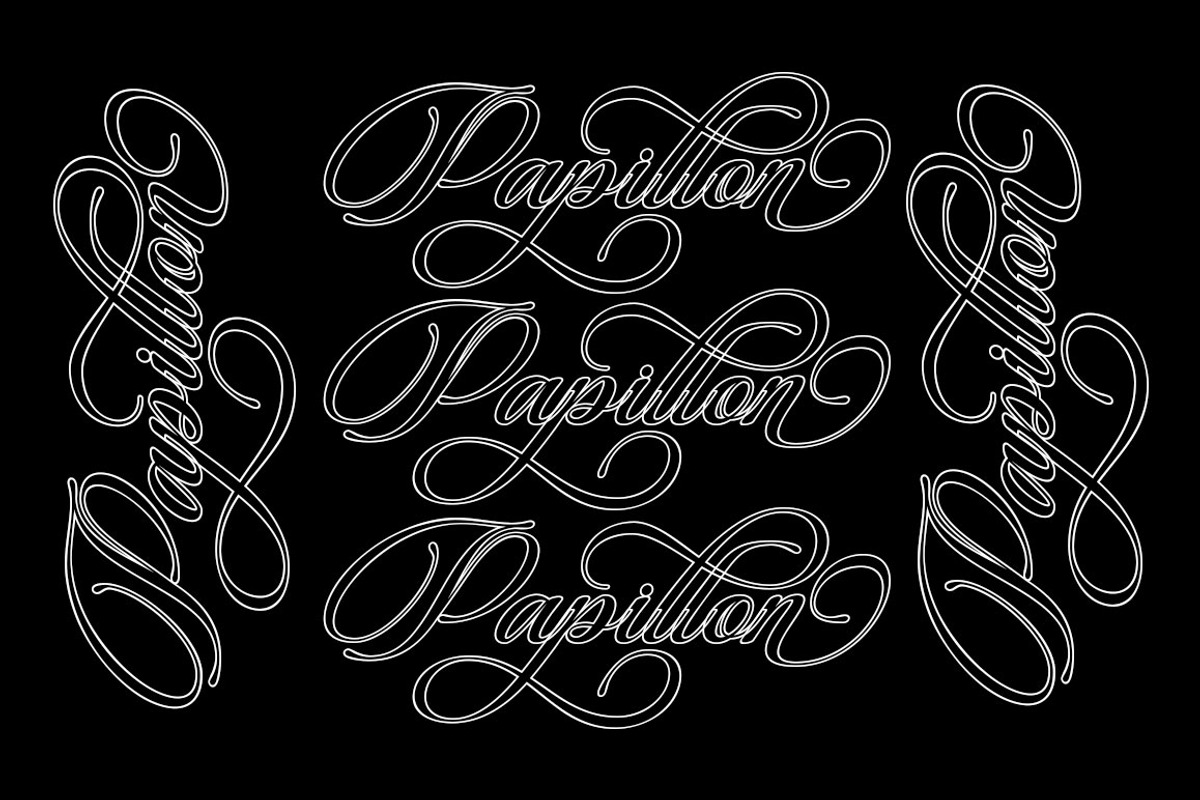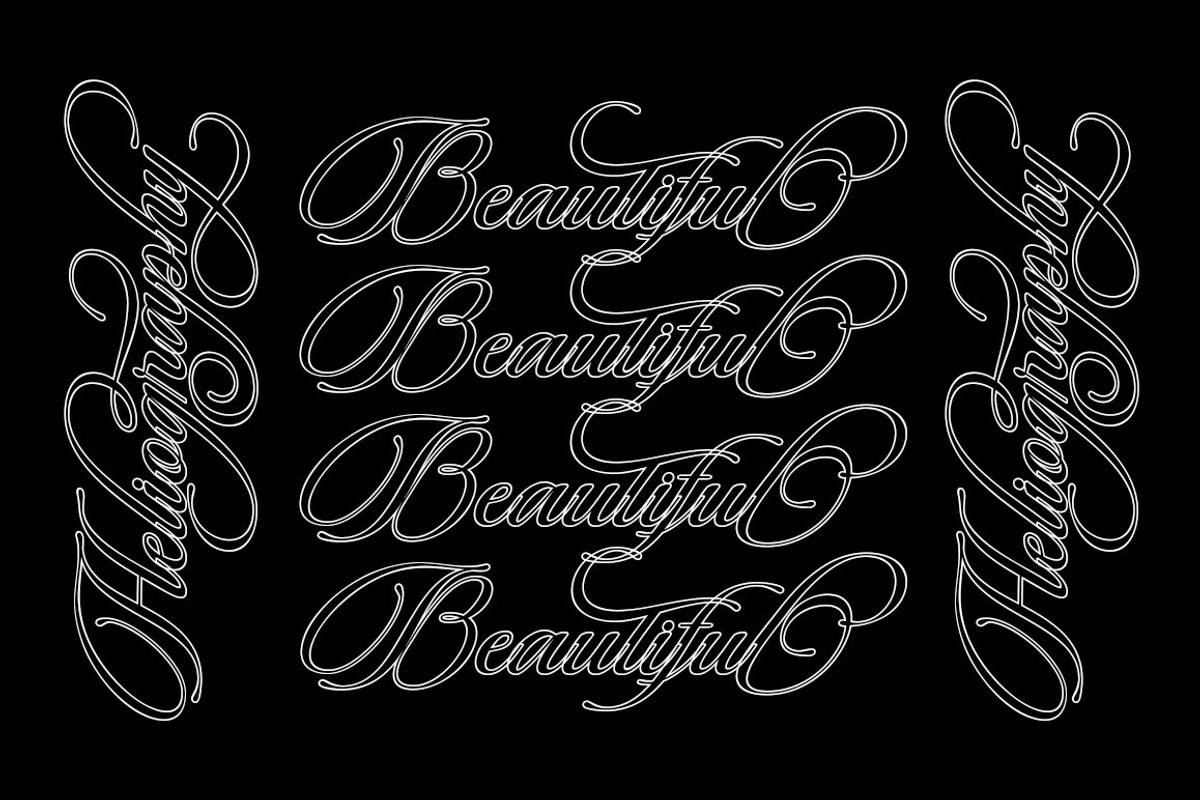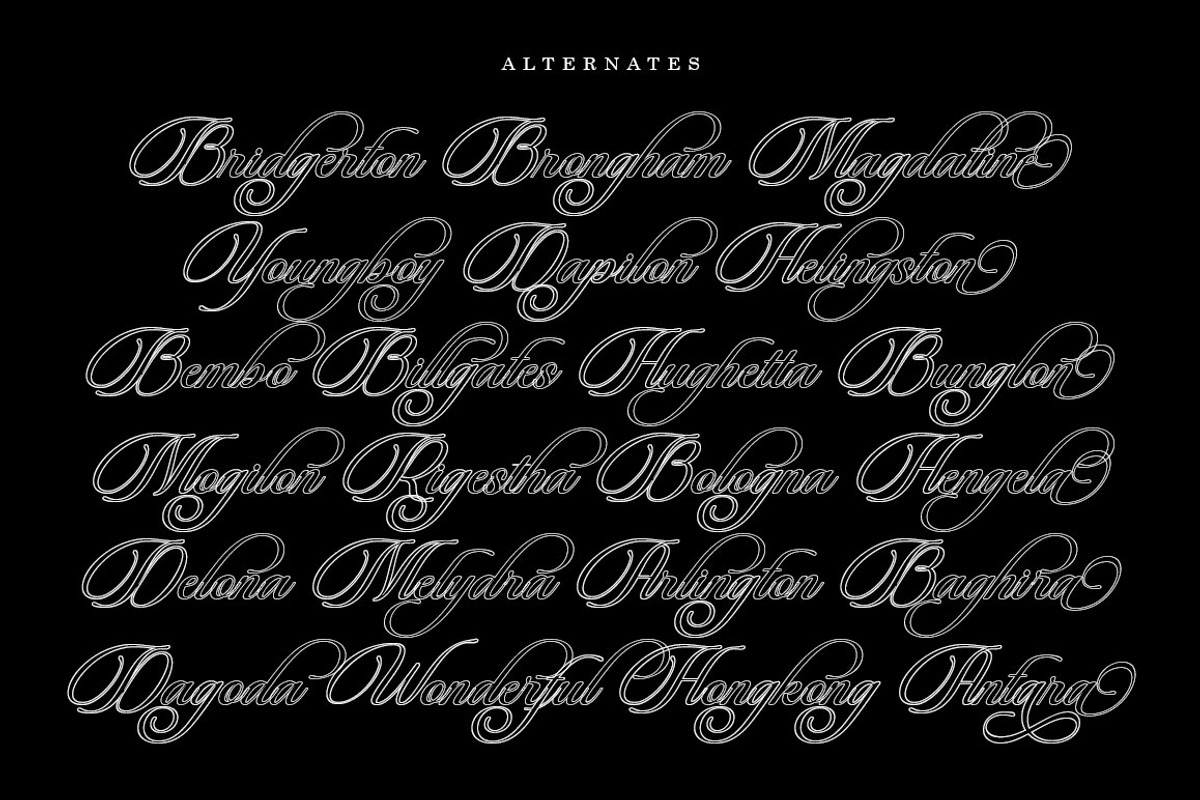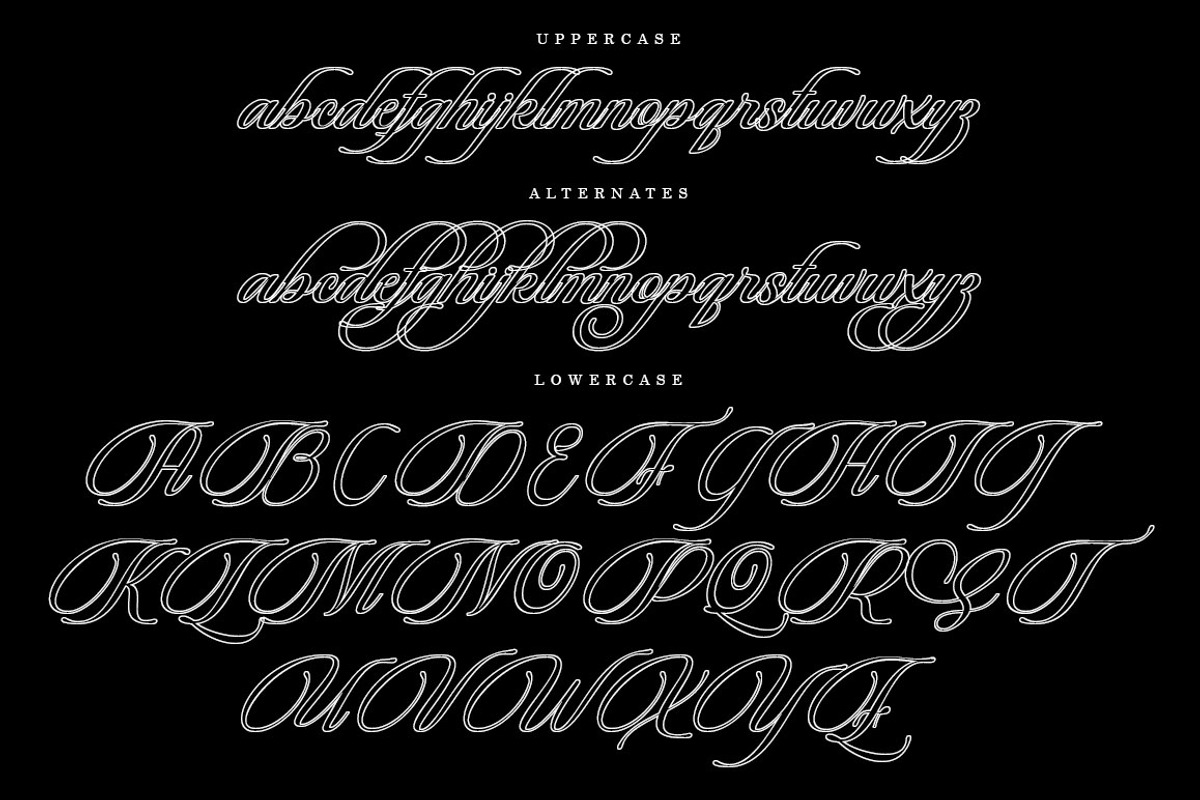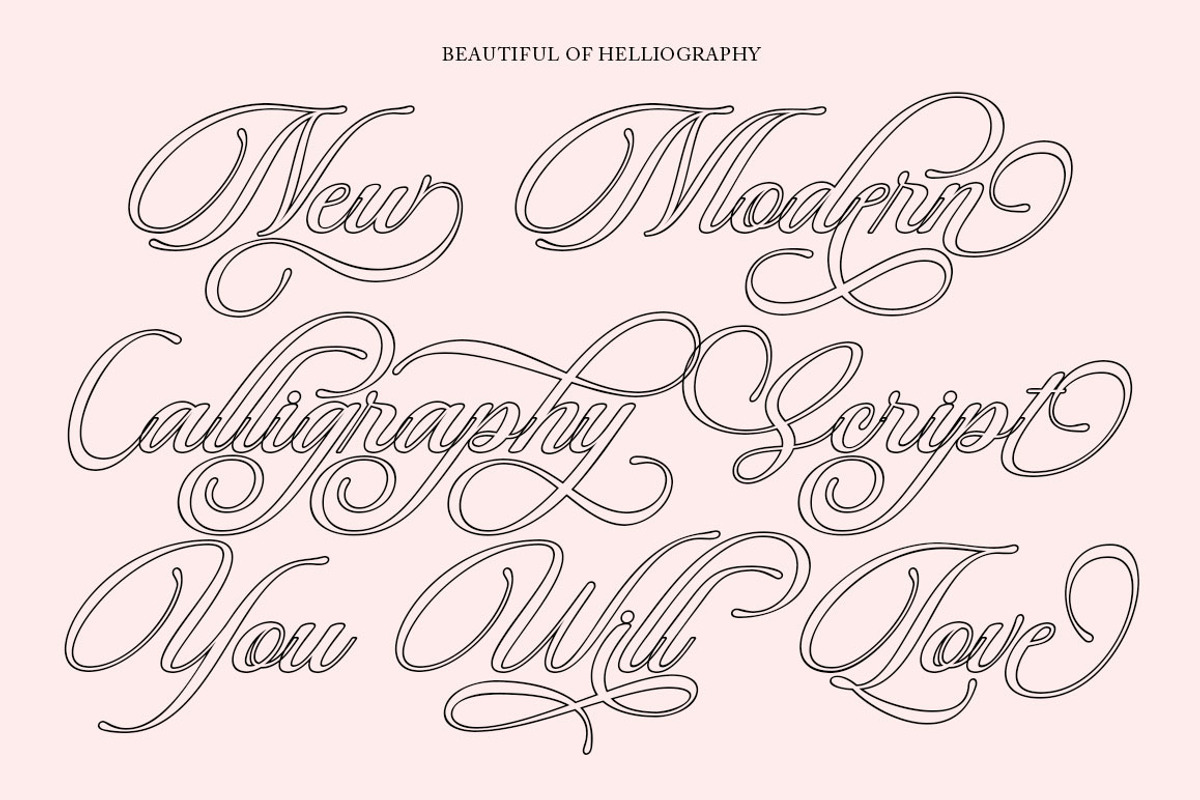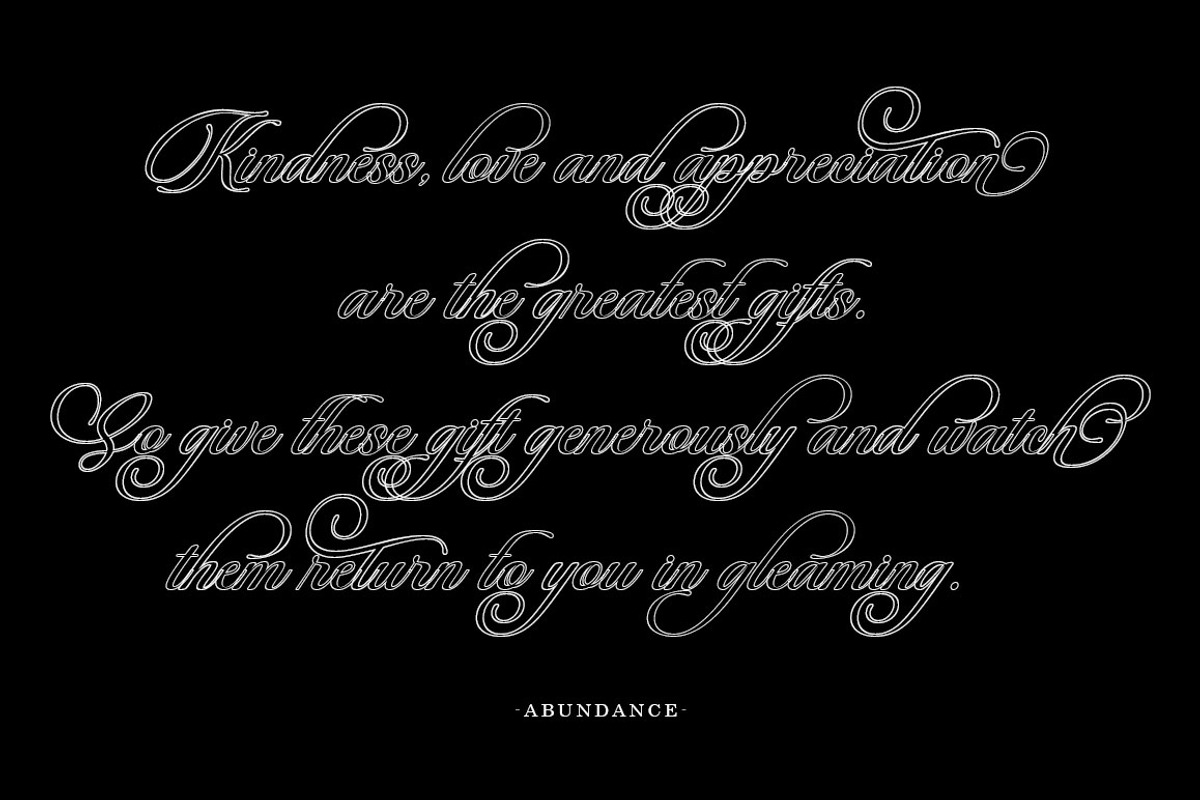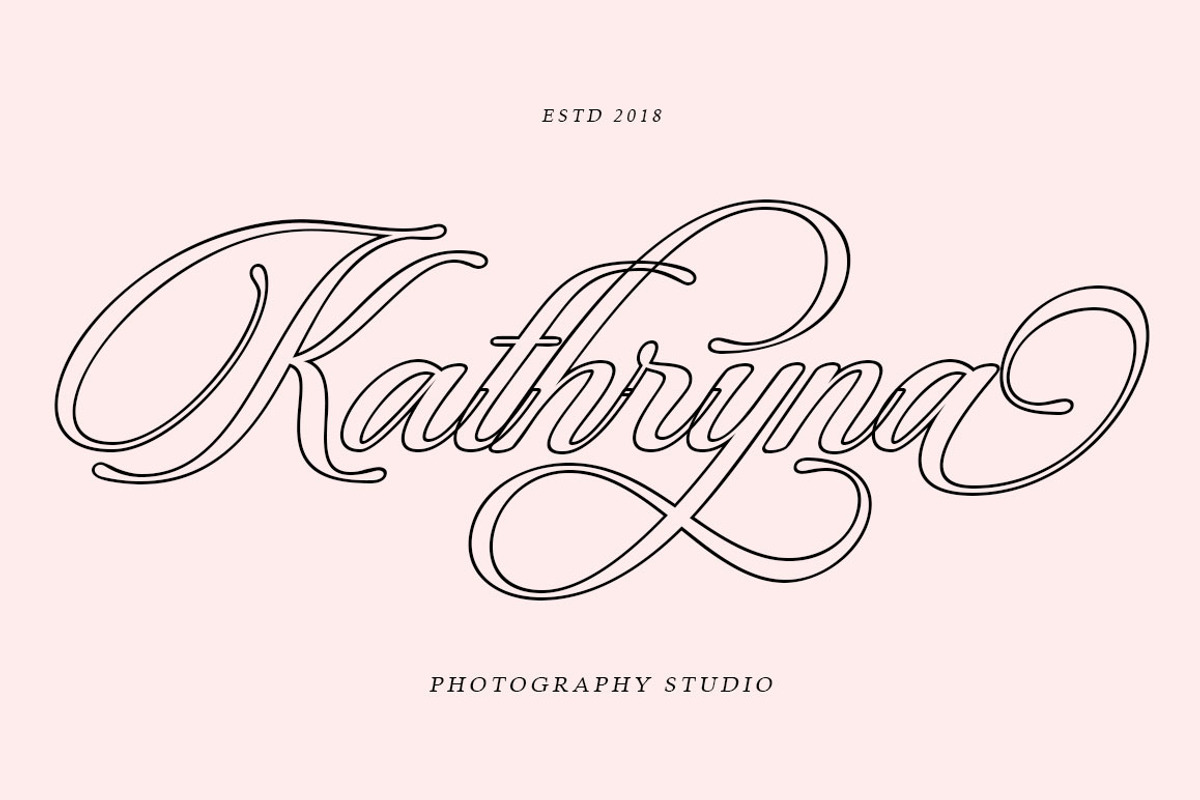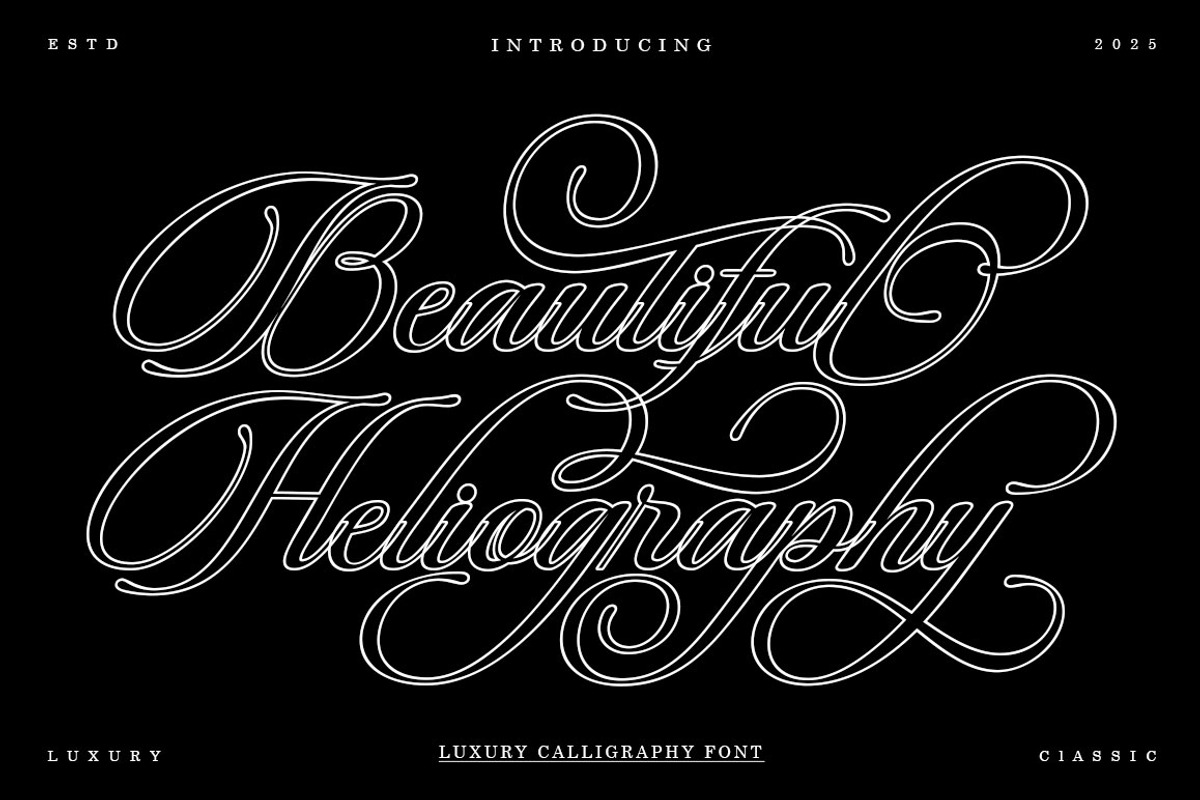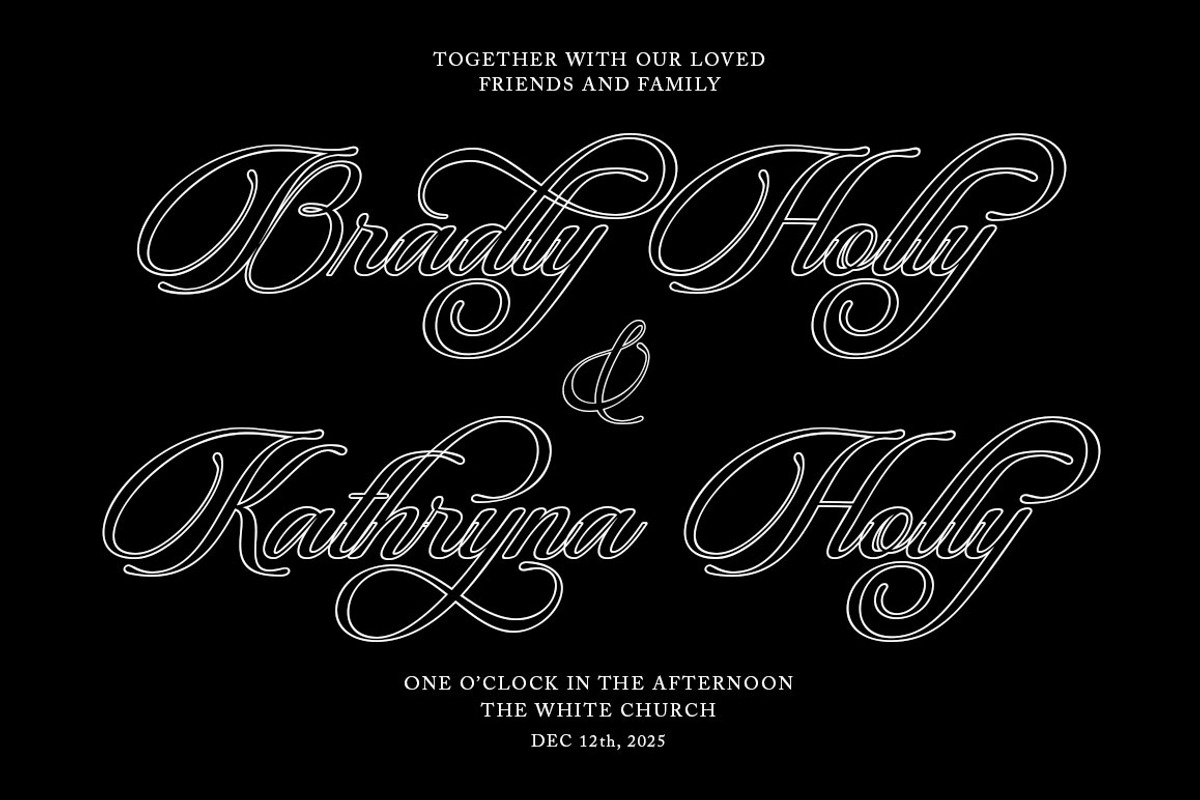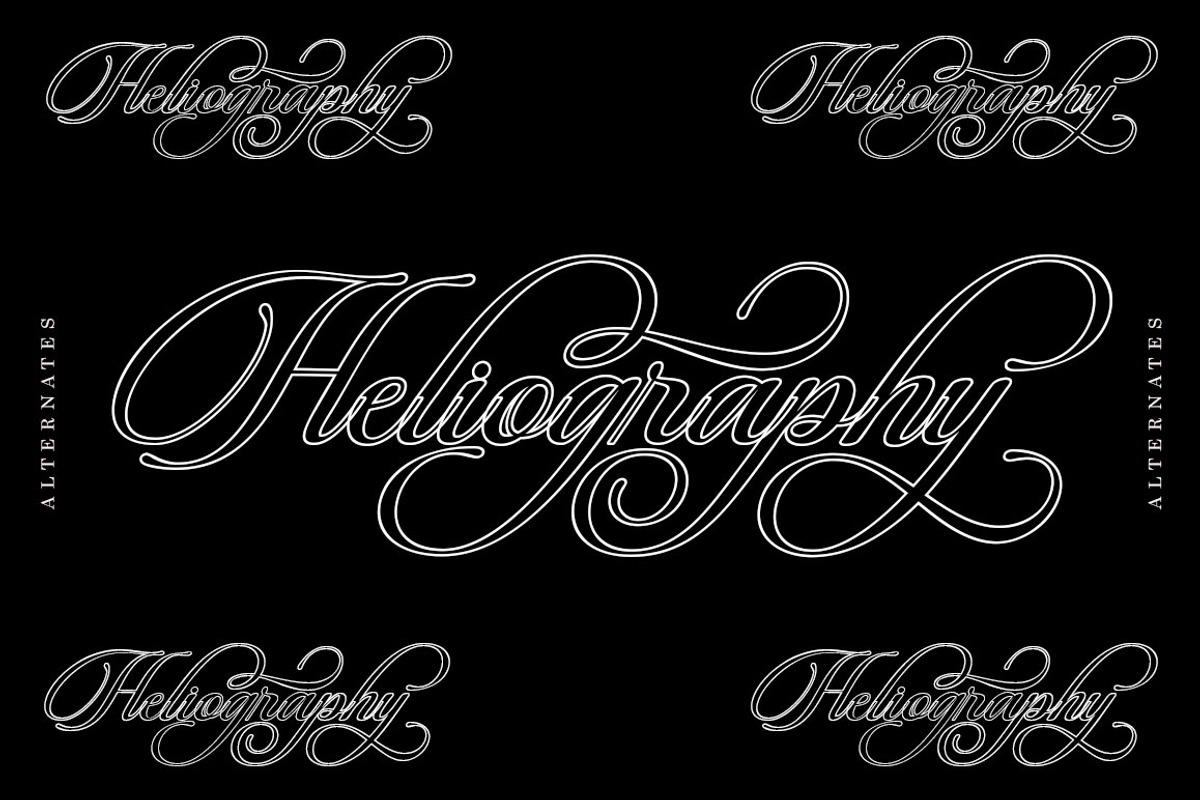
Beautiful Heliography Outline
Beautiful Heliography Outline is a modern classic style script font inspired by classic handwriting in books. This font comes with style sets, Contextual Alternatives, ligatures and also multi-language support which adds aesthetics that make your work even more attractive.
Beautiful Heliography Outline is perfect for your creative projects such as Logotype, printed quotes, invitations, cards, product packaging, headers, Letterheads, Apparel, Web design, Magazines, Books, etc.